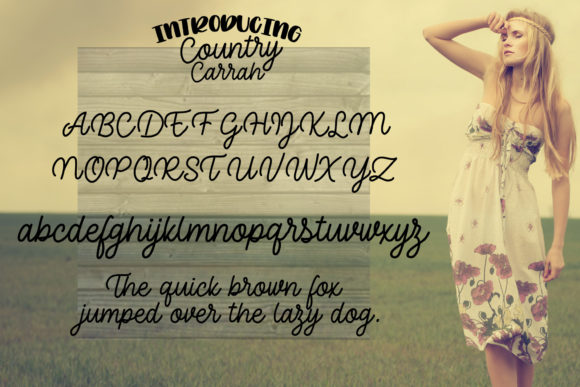
Introduction to Country Carrah Font Font
Fonts play a crucial role in design, and the Country Carrah Font font is a typeface that brings both character and versatility to any project. Whether you’re working on a branding project, a website, or a print design, the Country Carrah Font font offers a unique style that can elevate your work.
Country Carrah is the perfect new script font to bring a “country feel” to any project.
Key Features of Country Carrah Font Font
Why Choose Country Carrah Font Font?
The Country Carrah Font font is more than just a typeface – it’s a design tool that helps you communicate your message with style and clarity. Its unique character set and versatile design make it suitable for a wide range of applications, from elegant invitations to bold headlines.
With its carefully crafted letterforms and balanced proportions, the Country Carrah Font font ensures readability and visual appeal across all mediums.
What makes Country Carrah Font font special?
The Country Carrah Font font stands out with its unique design, exceptional readability, and versatility across various design applications.